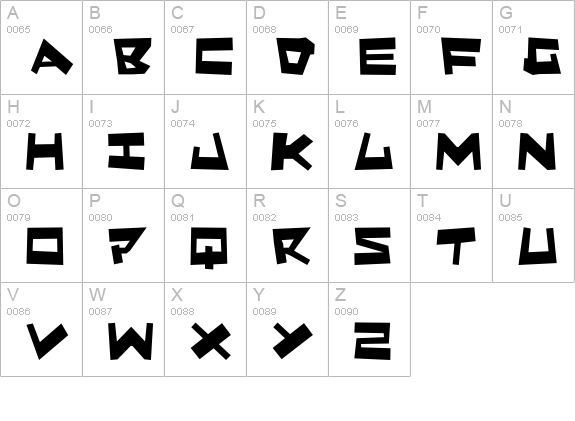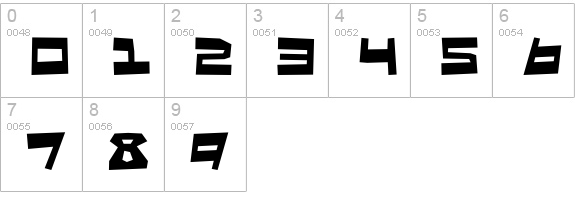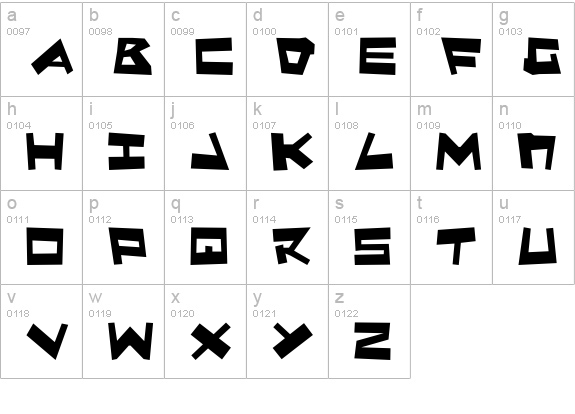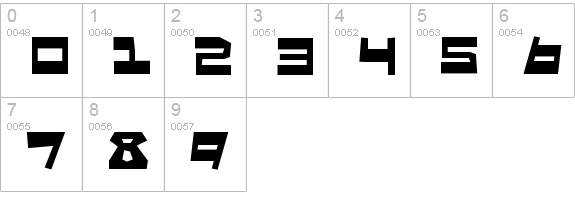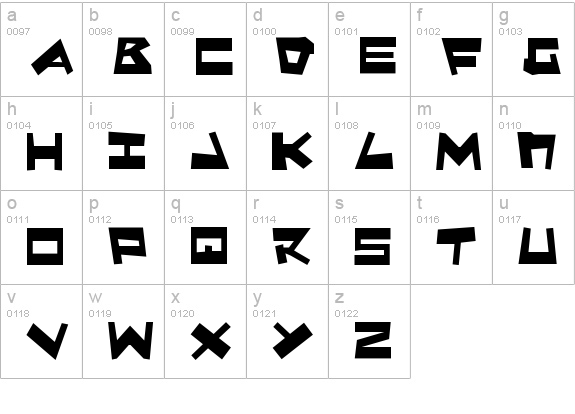
Quake & Shake Font Details
Quake & Shake font is a captivating and dynamic typeface that exudes energy and excitement. Its bold and rugged letterforms are designed to make a lasting impression and add a touch of vibrancy to any project. Whether you're creating a poster, logo, or website, Quake & Shake font is sure to grab attention and leave a lasting impact. With its unique and edgy aesthetic, this font is perfect for projects that require a bold and daring approach. The irregular shapes and jagged lines give Quake & Shake font a sense of movement and chaos, making it perfect for designs that aim to push boundaries and break the mold. And the best part? Quake & Shake font is free! That's right, this incredible font is freely available to download at FontsMarket.com. Now you can unleash your creativity without worrying about breaking the bank. Whether you're a professional designer or a hobbyist, Quake & Shake font gives you the freedom to create stunning designs without any limitations. So why wait? Download Quake & Shake font today and let your imagination run wild. With its captivating style and free availability, it's a font that's sure to make a statement and elevate your design projects to new heights.